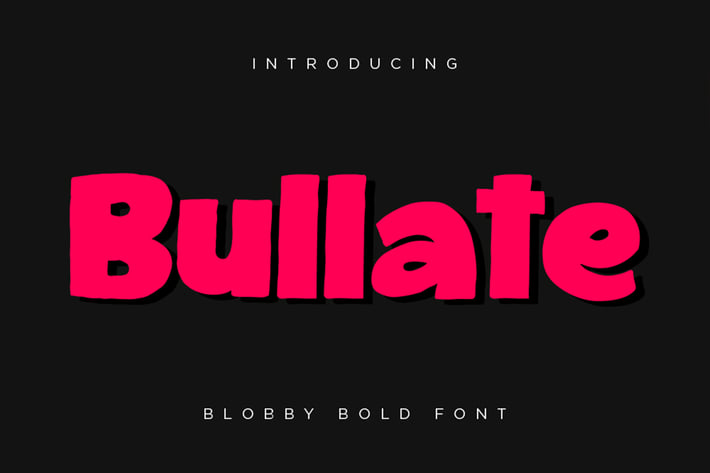
Bullate - Blobby Bold Font
Bullate is a playful hand-drawn sans serif font. Build by the sketch for every single character but still holding on the hand-drawn style in every edge of it. Inspired by the kid’s snack, storybook, comic, cartoon, movie, and a playful visual concept.